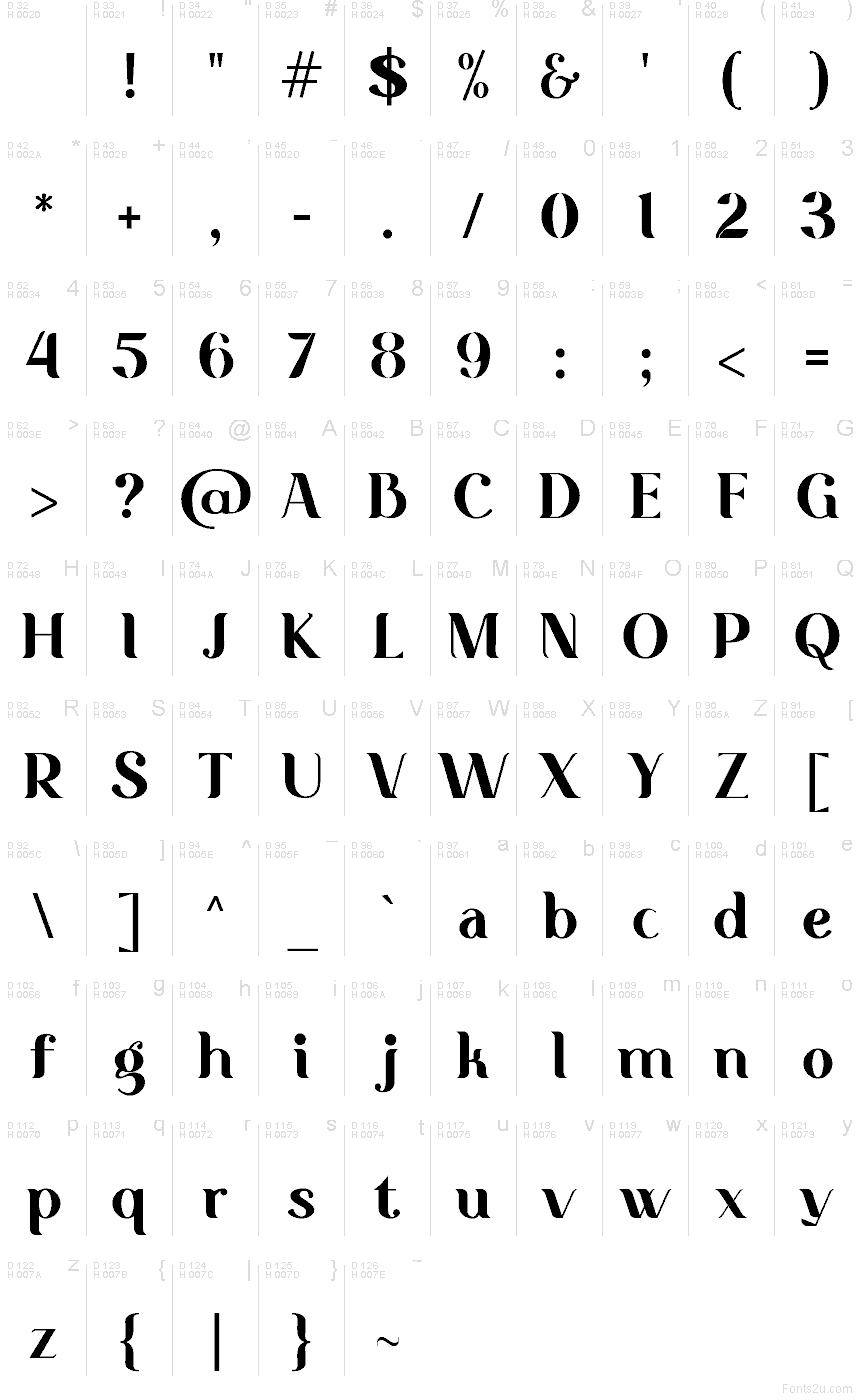
Mifer Holland Regular
Mifer Holland font by Wildan Type is a free serif display typeface with a bold, inky presence and razor-sharp detailing. Its chunky vertical strokes and tightly sculpted curves create a dramatic rhythm, while the narrow proportions keep it refined rather than shouty. The result feels like a modern fashion masthead crossed with classic editorial lettering—opulent, confident, and instantly eye-catching.
Using Mifer Holland, headlines feel luxurious and deliberate, making this free font a natural fit for branding, magazine covers, beauty packaging, posters, event invitations, and high-end social graphics. It holds its character best at larger sizes, where the thick strokes and crisp cuts really show. Pair it with a clean geometric sans for body copy to balance its rich, heavy forms.